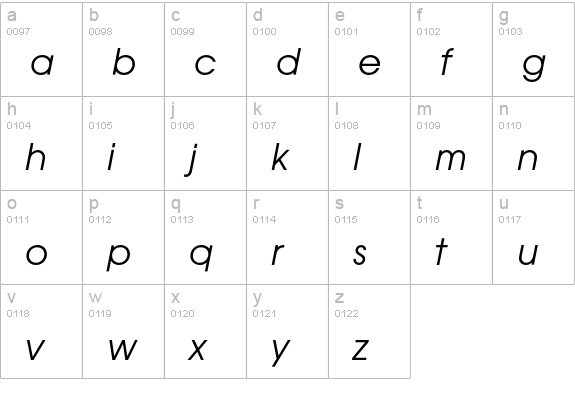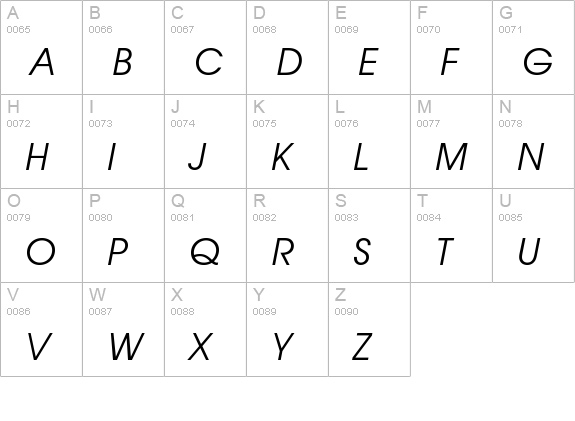
AvantGardEF-BookOblique Font Details
AvantGardEF-BookOblique is a sophisticated and modern font that exudes elegance and creativity. With its slanted design and unique characteristics, this font adds a touch of avant-garde flair to any project. The sleek lines and smooth curves of AvantGardEF-BookOblique make it perfect for use in a wide range of creative applications, from branding to editorial design. The best part? AvantGardEF-BookOblique is available for free download at FontsMarket.com. This means that you can easily access this stylish font without any cost, making it a valuable addition to your font collection. Whether you're working on a professional project or a personal creative endeavor, AvantGardEF-BookOblique is sure to elevate your design with its unique aesthetic and versatility. Download it today and explore the endless possibilities of this exceptional font.